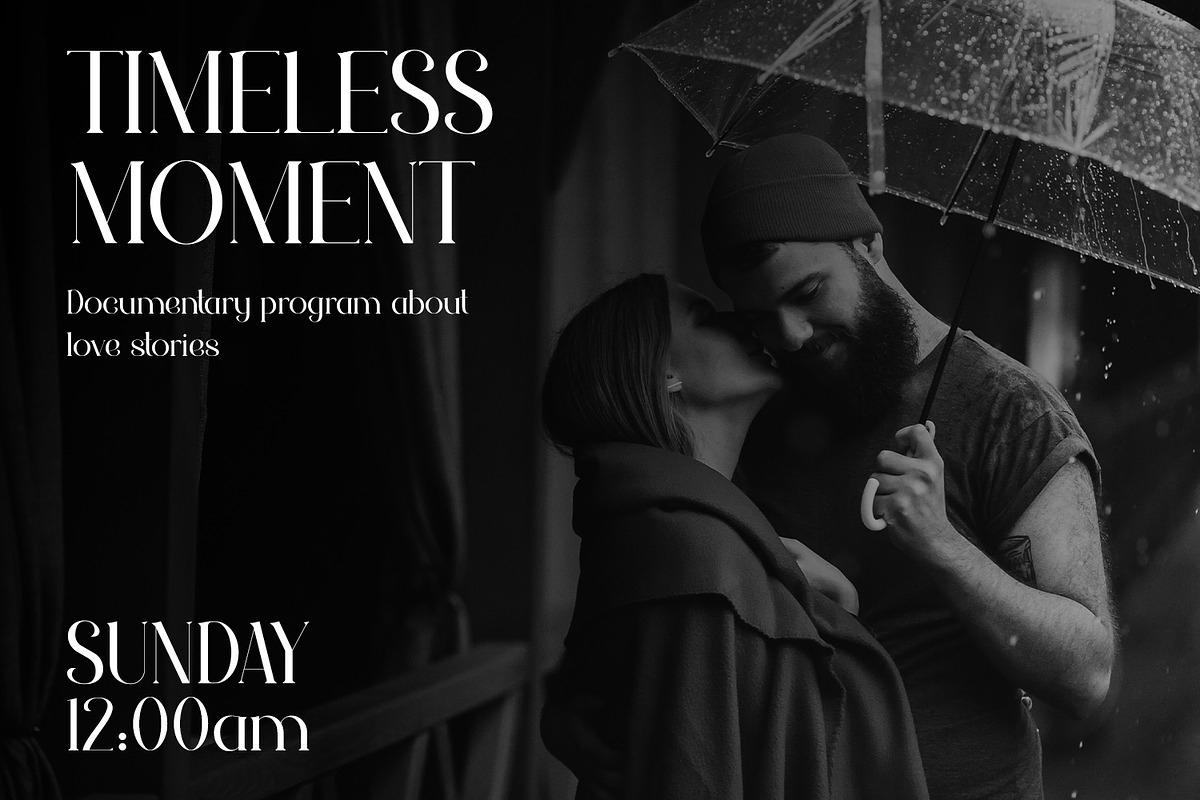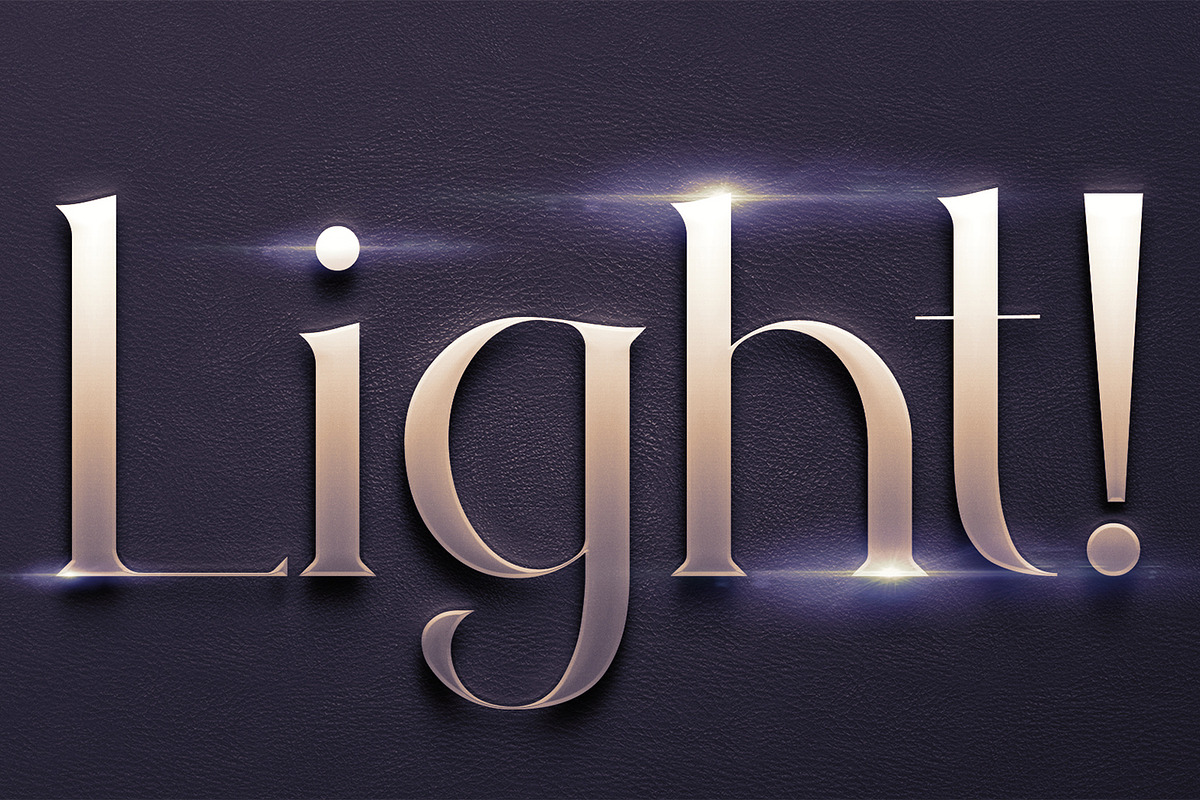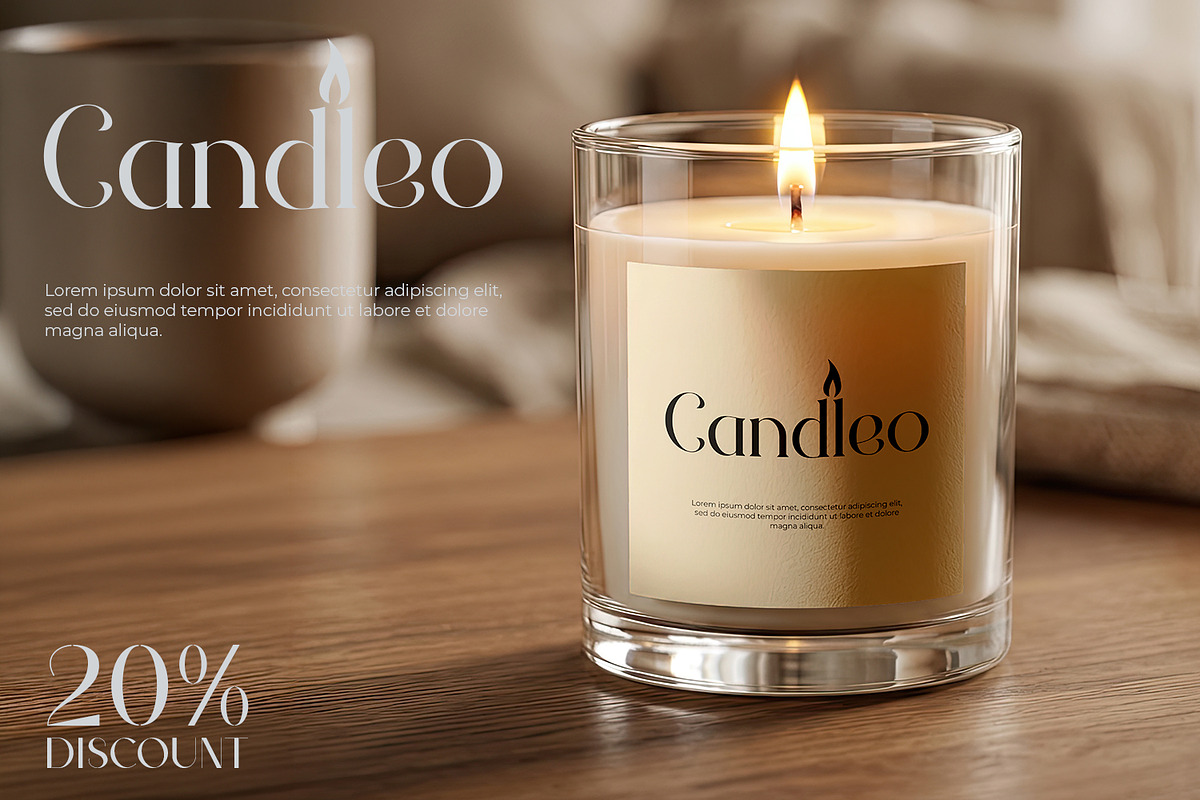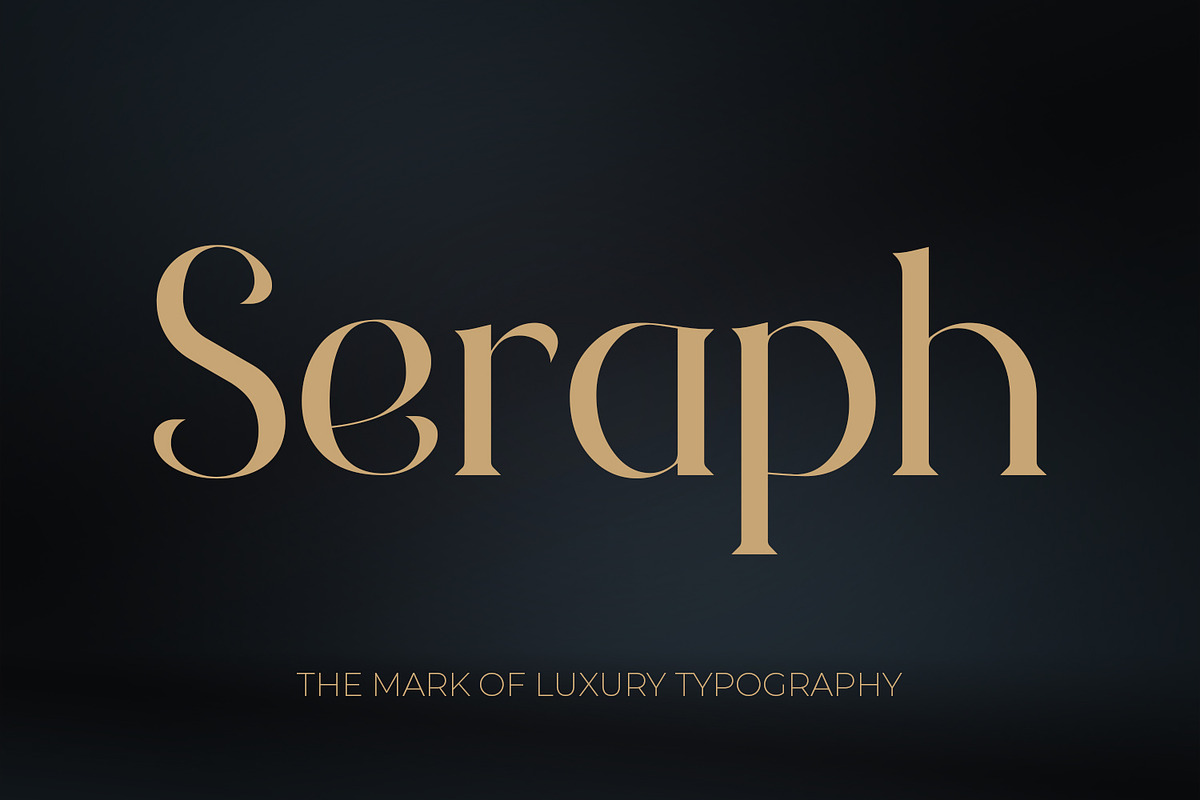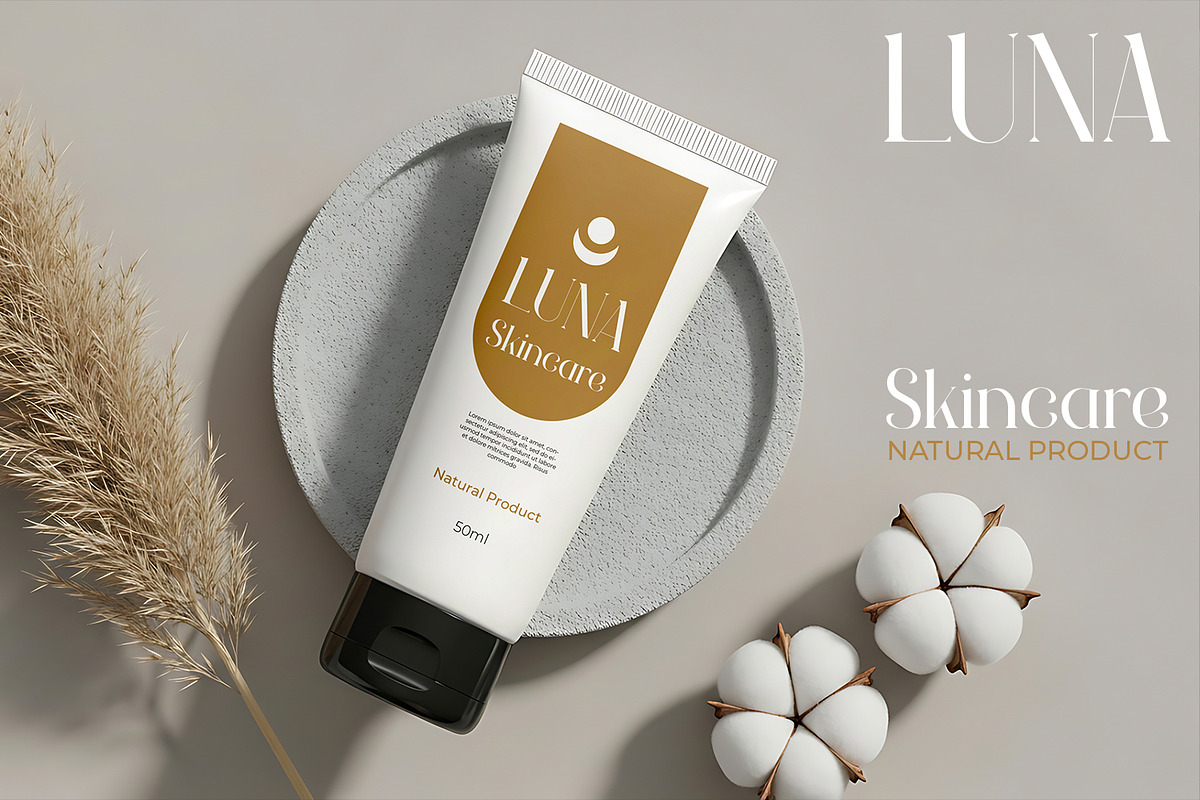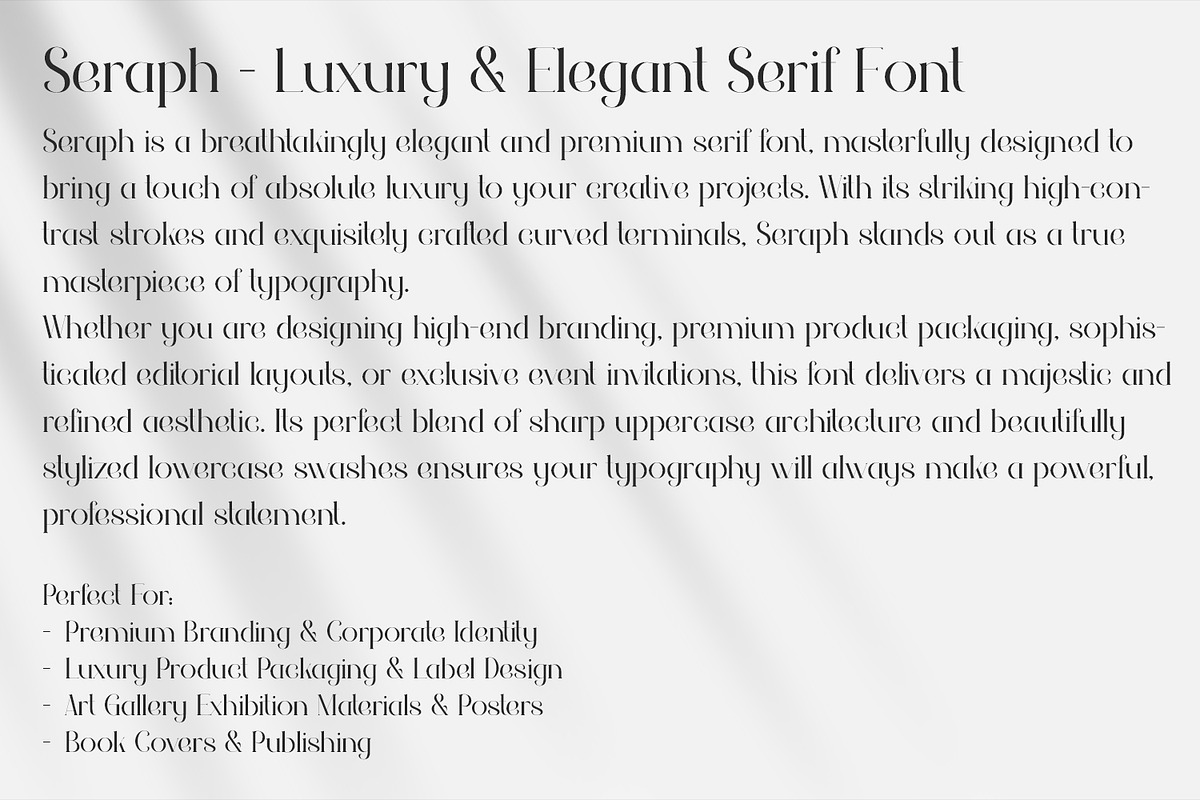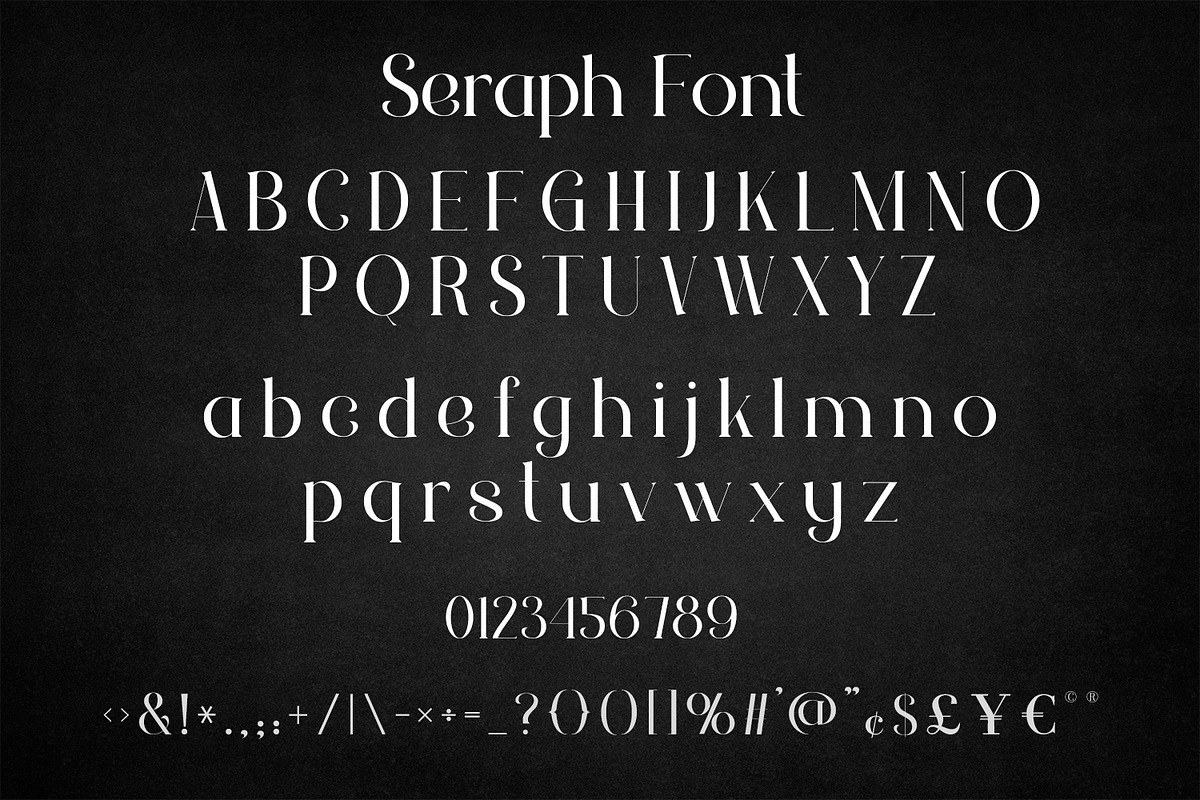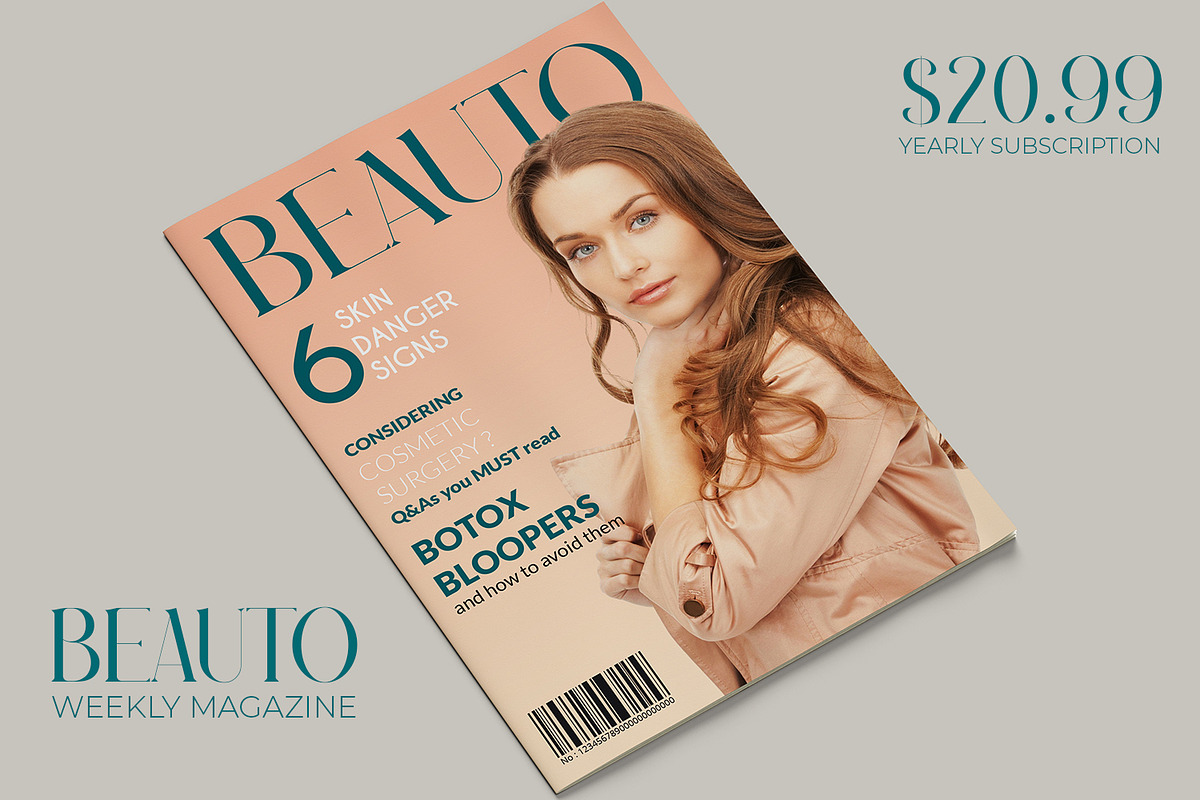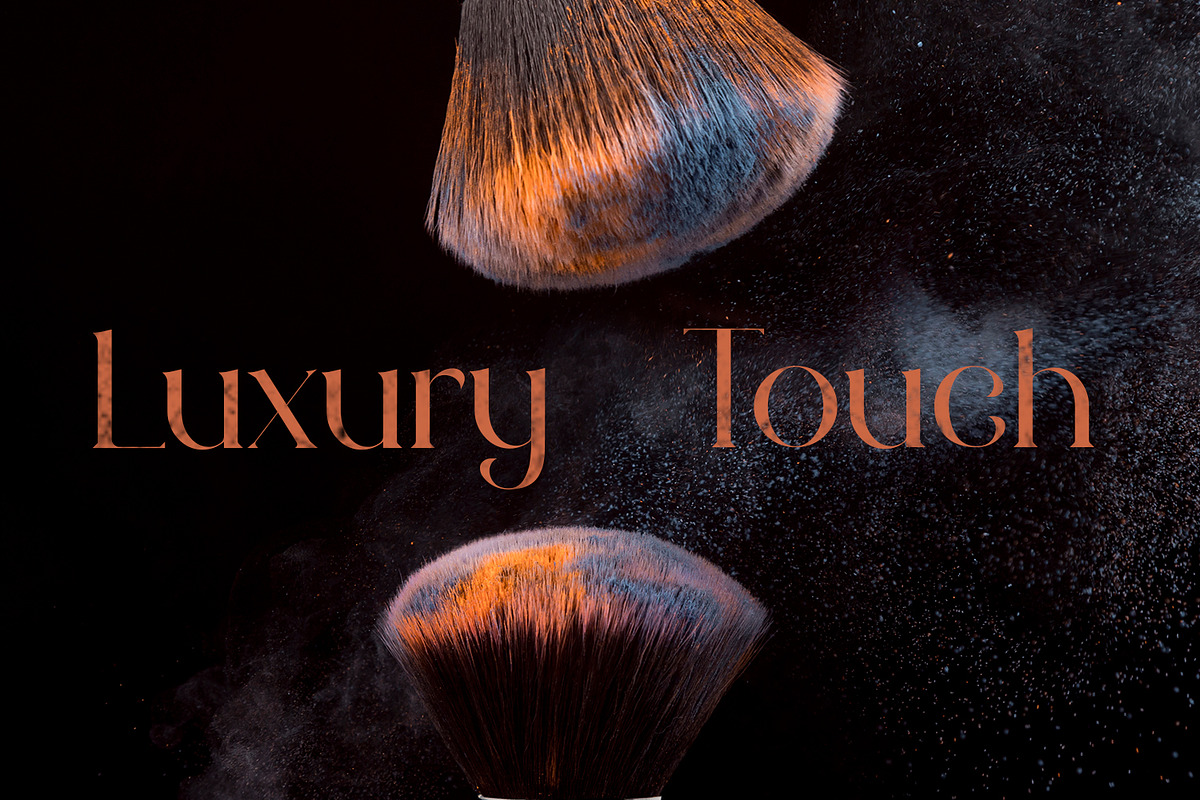
Seraph - Premium Decorative Serif
Seraph is a breathtakingly elegant and premium serif font, masterfully designed to bring a touch of absolute luxury to your creative projects. With its striking high-contrast strokes and exquisitely crafted curved terminals, Seraph stands out as a true masterpiece of typography.
Perfectly suited for high-end branding, premium product packaging, sophisticated editorial layouts, gorgeous logo designs, and exclusive event invitations, this font delivers a majestic and refined aesthetic. It's a perfect blend of sharp uppercase architecture and beautifully stylized lowercase swashes ensures your typography will always make a powerful, professional, and timeless statement.